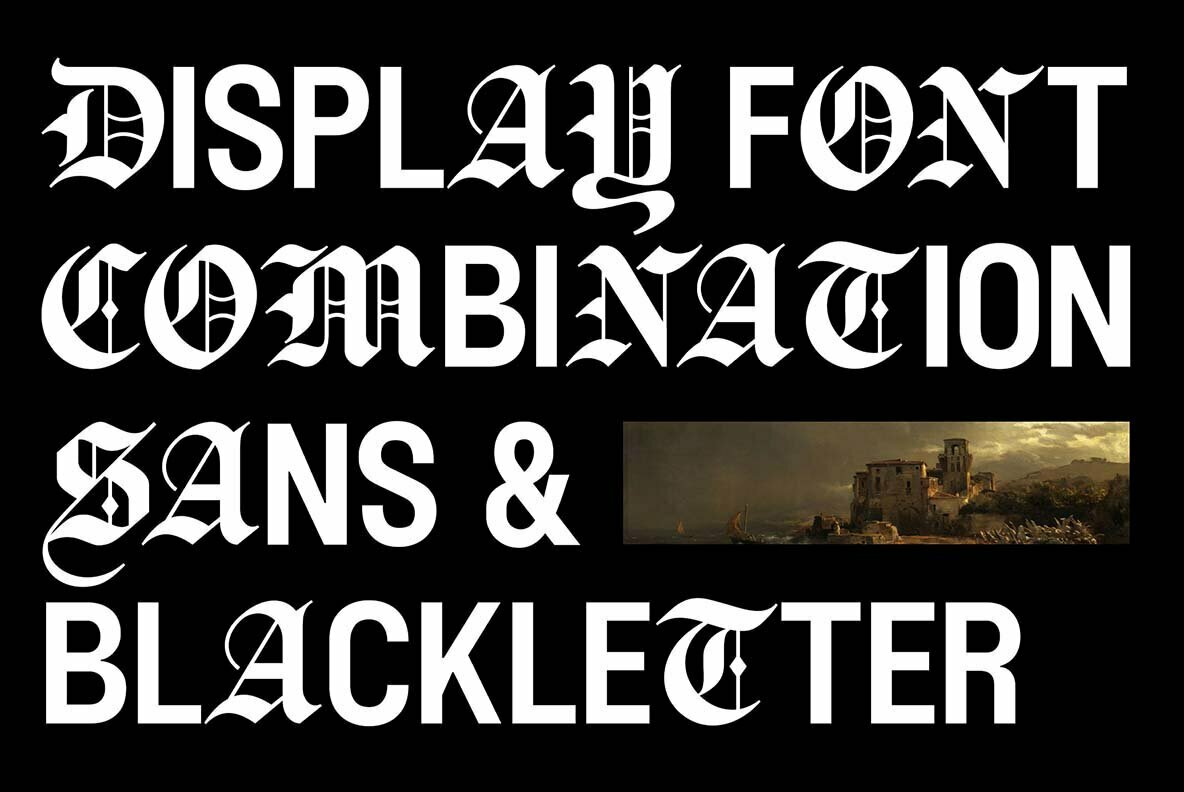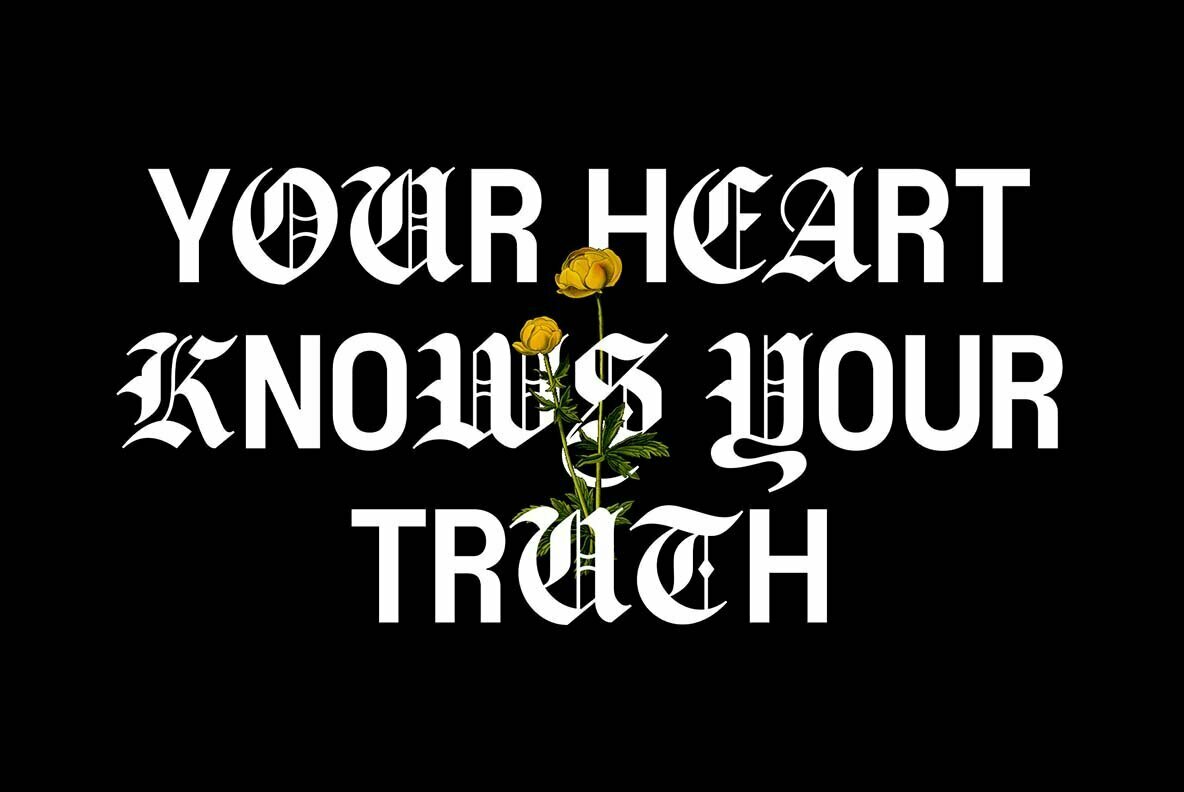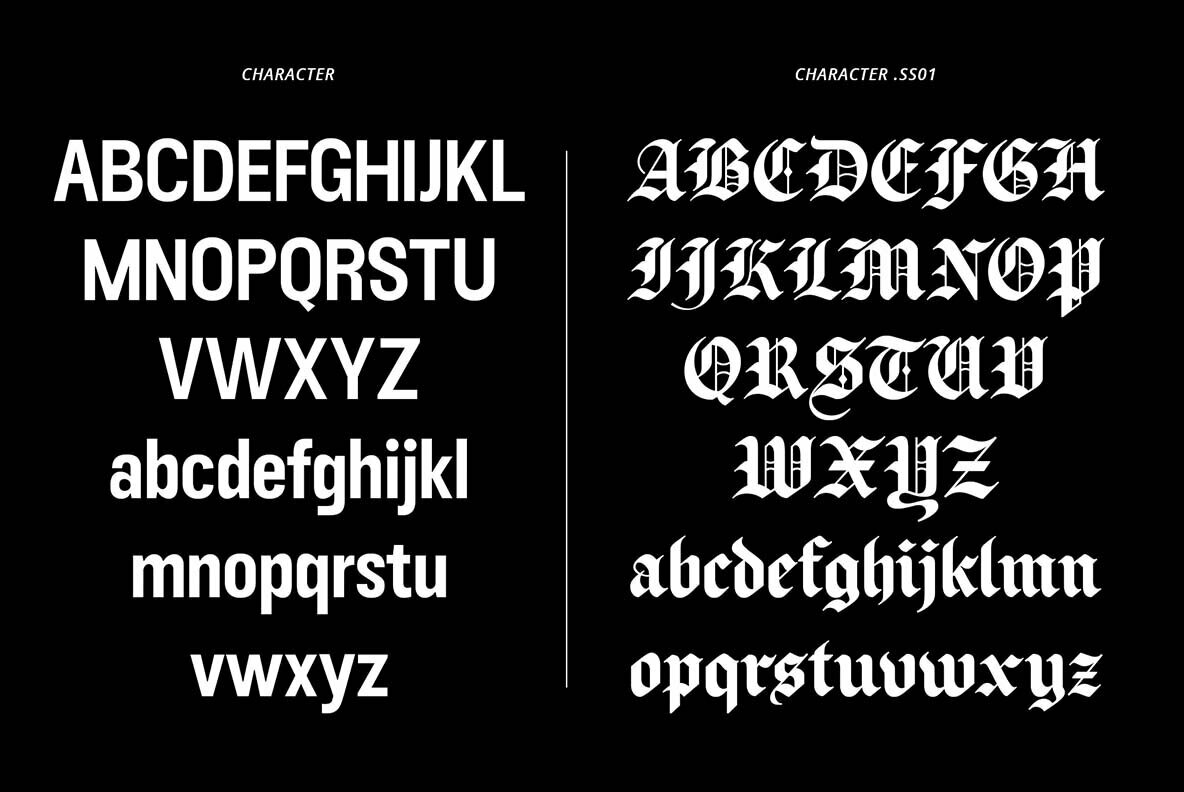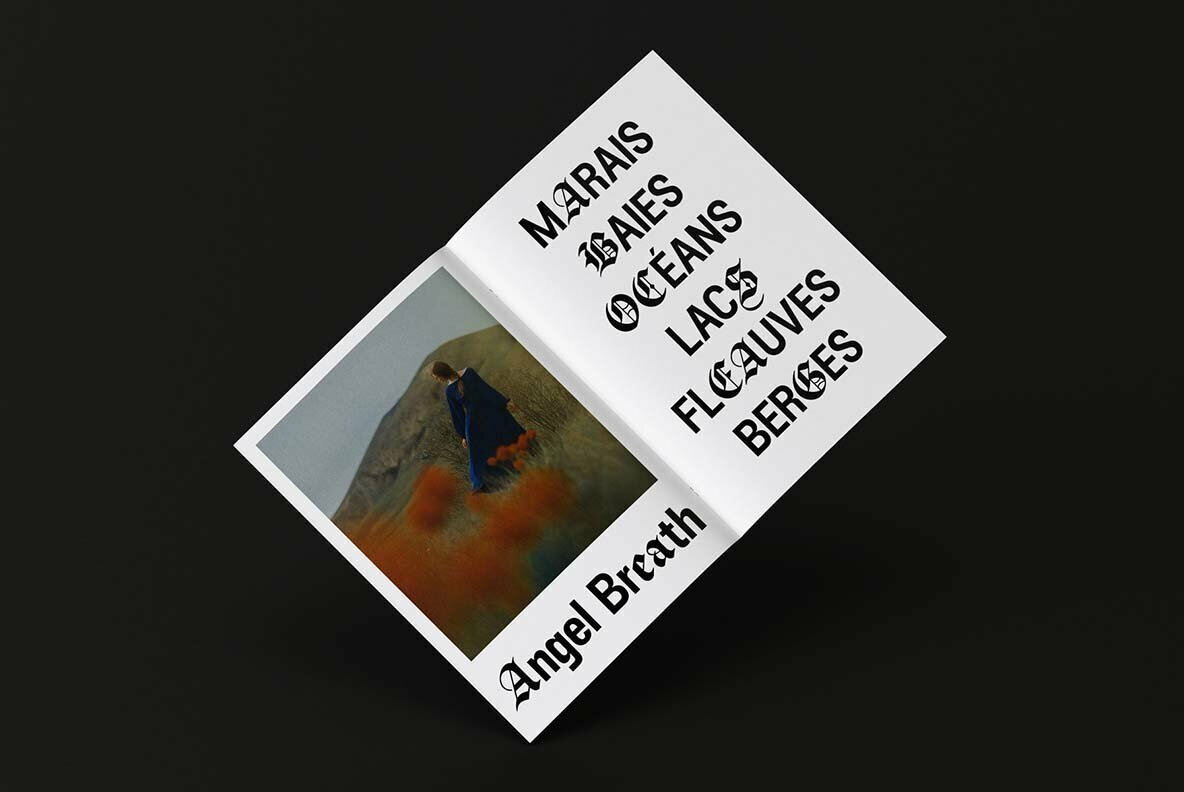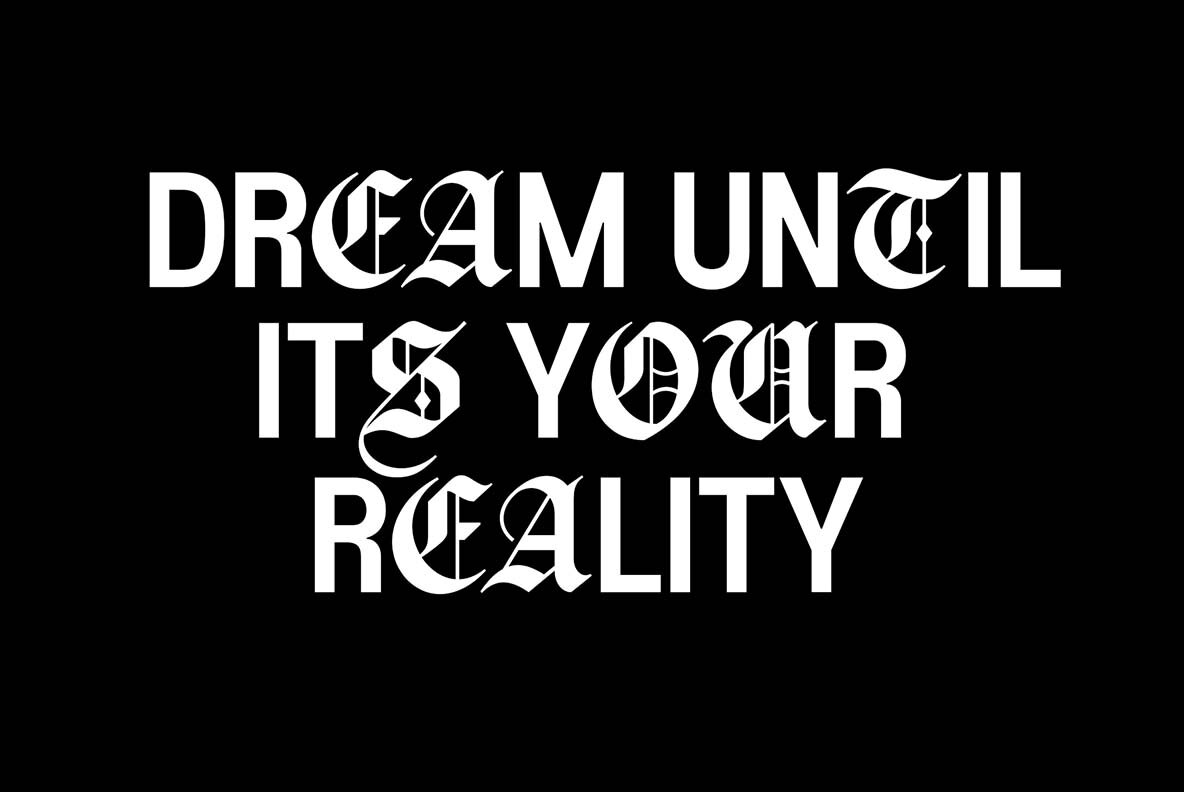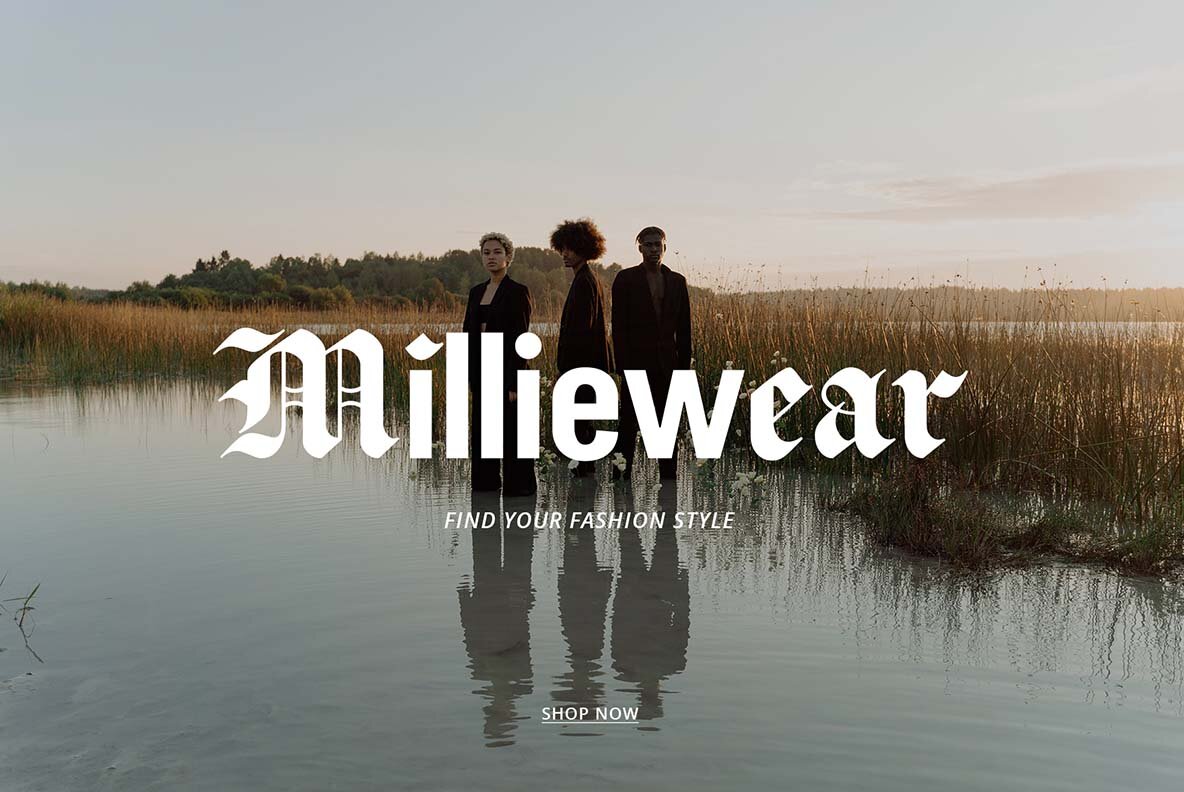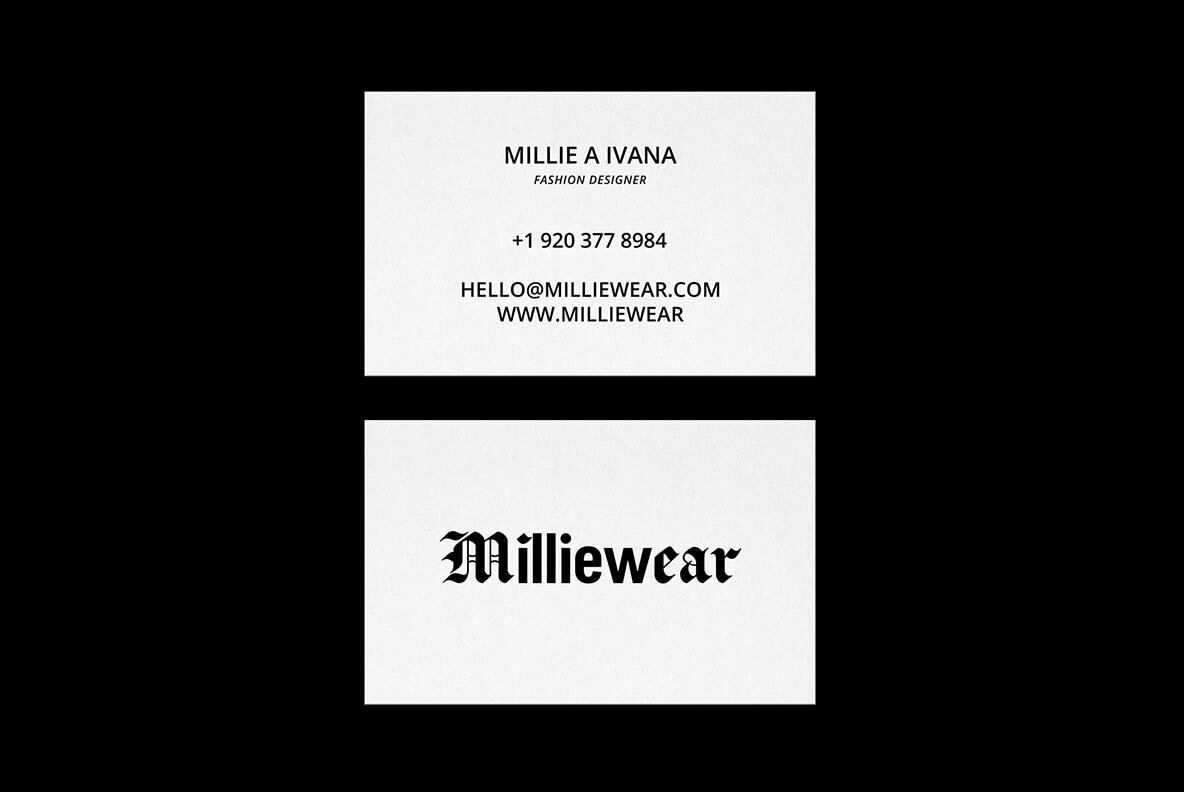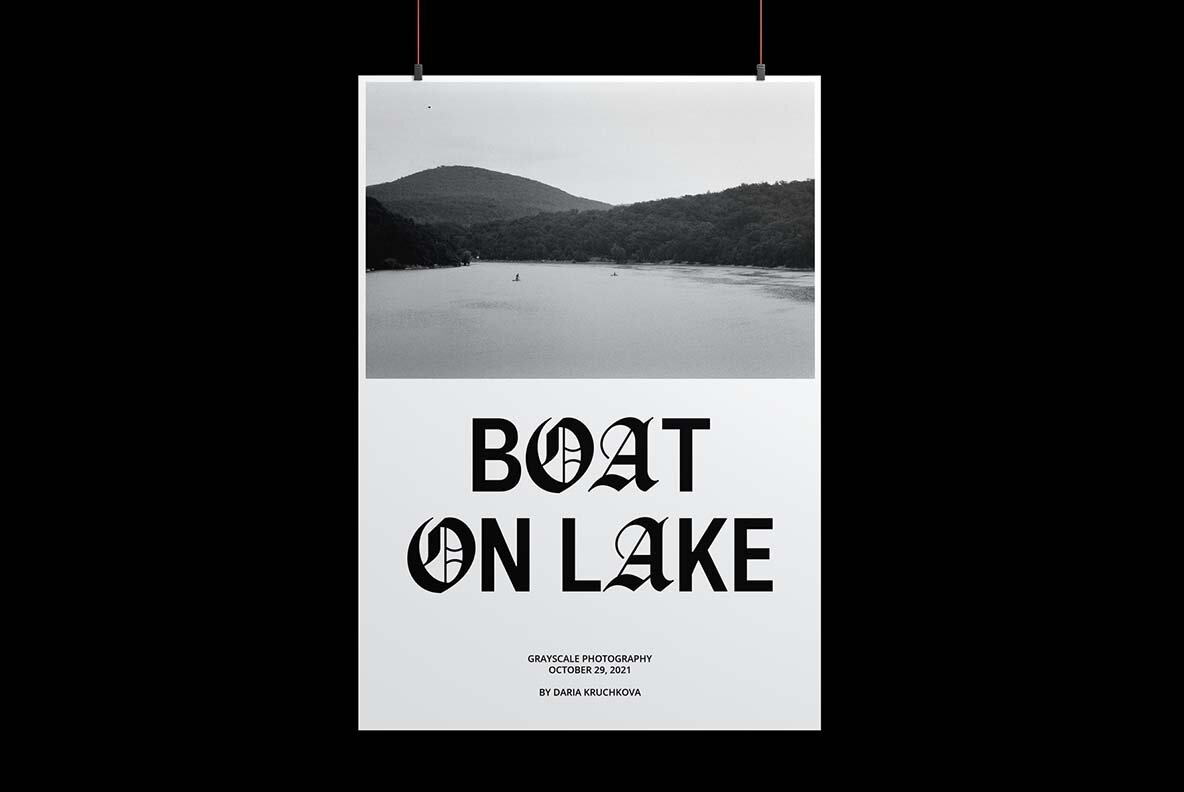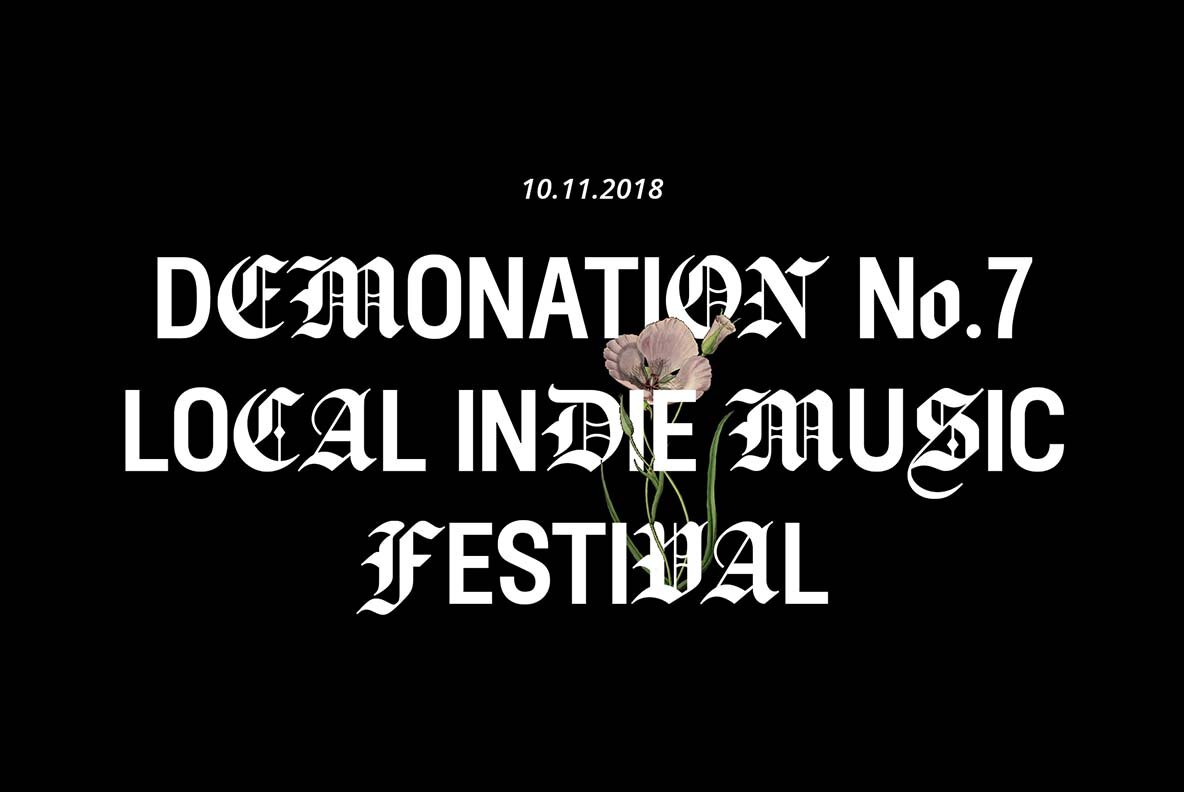
ED Manteca 1
Manteca is a unique sans serif and blackletter combination design. This design is equipped with several features such as alternative characters, ligatures, and multi-language support.